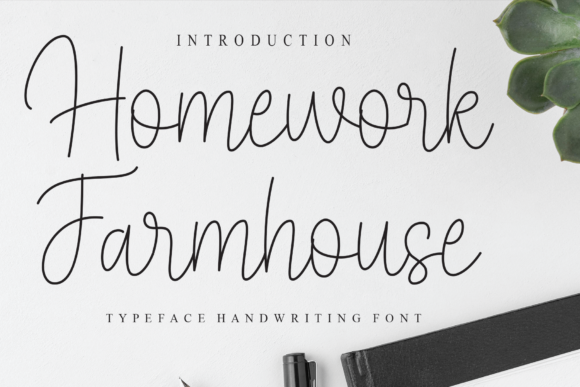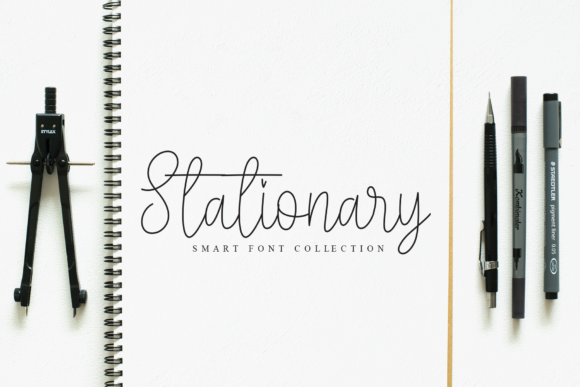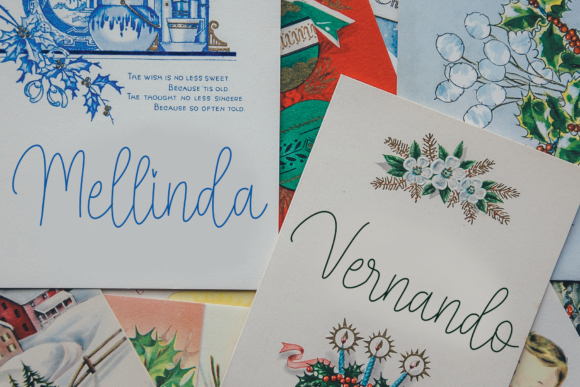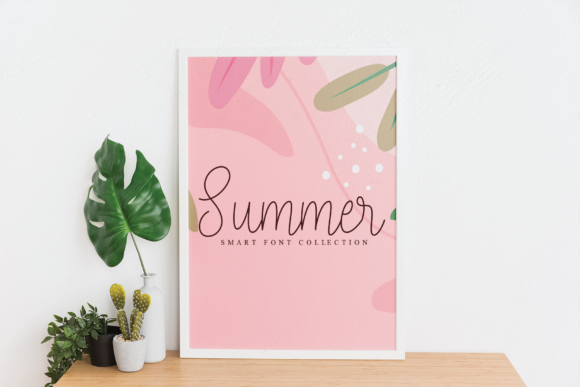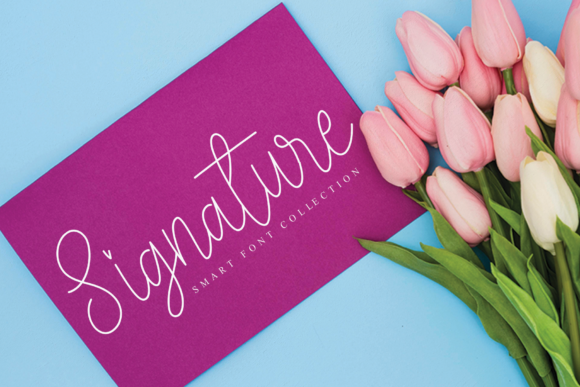
Homework Farmhouse Font
About Homework Farmhouse Font
Homework Farmhouse is a beautiful, thin and refined script font. It has a classy, elegant and modern look that can be used for logos, branding, invitations, stationery, wedding designs, social media posts, and much more!